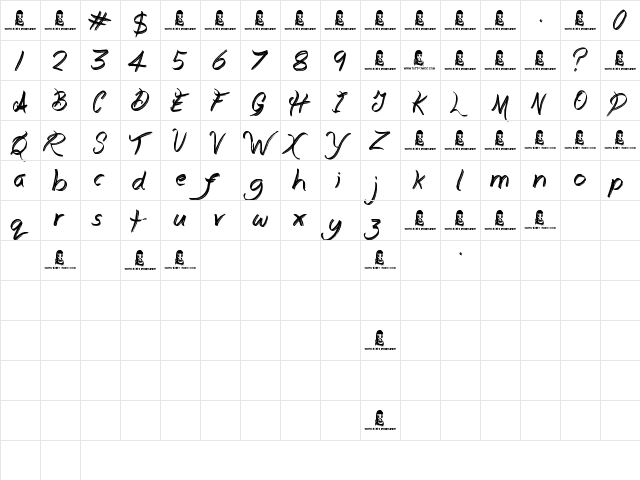
Frilly Knickers Regular Font Preview
Frilly Knickers Regular
Design Context for Frilly Knickers Typeface
Frilly Knickers is a composed and adaptable typeface that performs quietly and consistently across a wide range of design contexts.